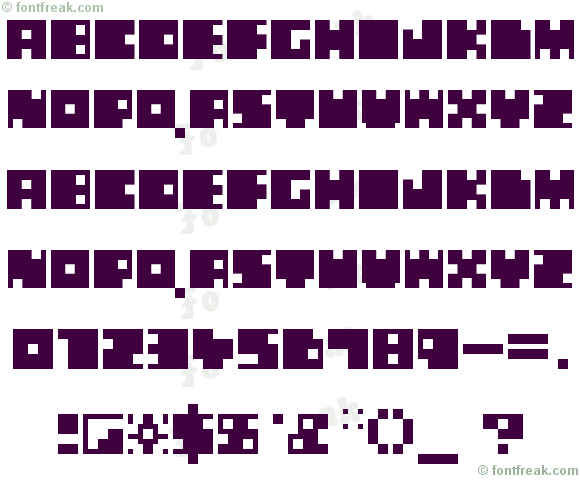
blablabla Regular
The blablabla Regular font, designed by Fran Board in 2009, offers a unique take on the display typeface category. With its bold, geometric shapes and distinctive character, this font is perfect for making a statement in various design projects. The visual characteristics of blablabla Regular include a consistent stroke weight that adds a sense of stability, while its slight contrast creates an eye-catching appeal. The spacing between letters is well-balanced, allowing for easy readability while still maintaining a striking appearance.
This font shines in multiple use cases, making it a versatile choice for designers and content creators. It works exceptionally well for eye-catching movie posters, where its boldness can draw attention to key title elements. Additionally, the blablabla Regular font can enhance wedding invitations, giving a contemporary twist to traditional designs. Its playful yet professional nature makes it suitable for restaurant menus, helping to convey a unique dining experience. Small business owners will also find this font beneficial for branding materials, including logos and promotional flyers, as it communicates creativity and modernity.